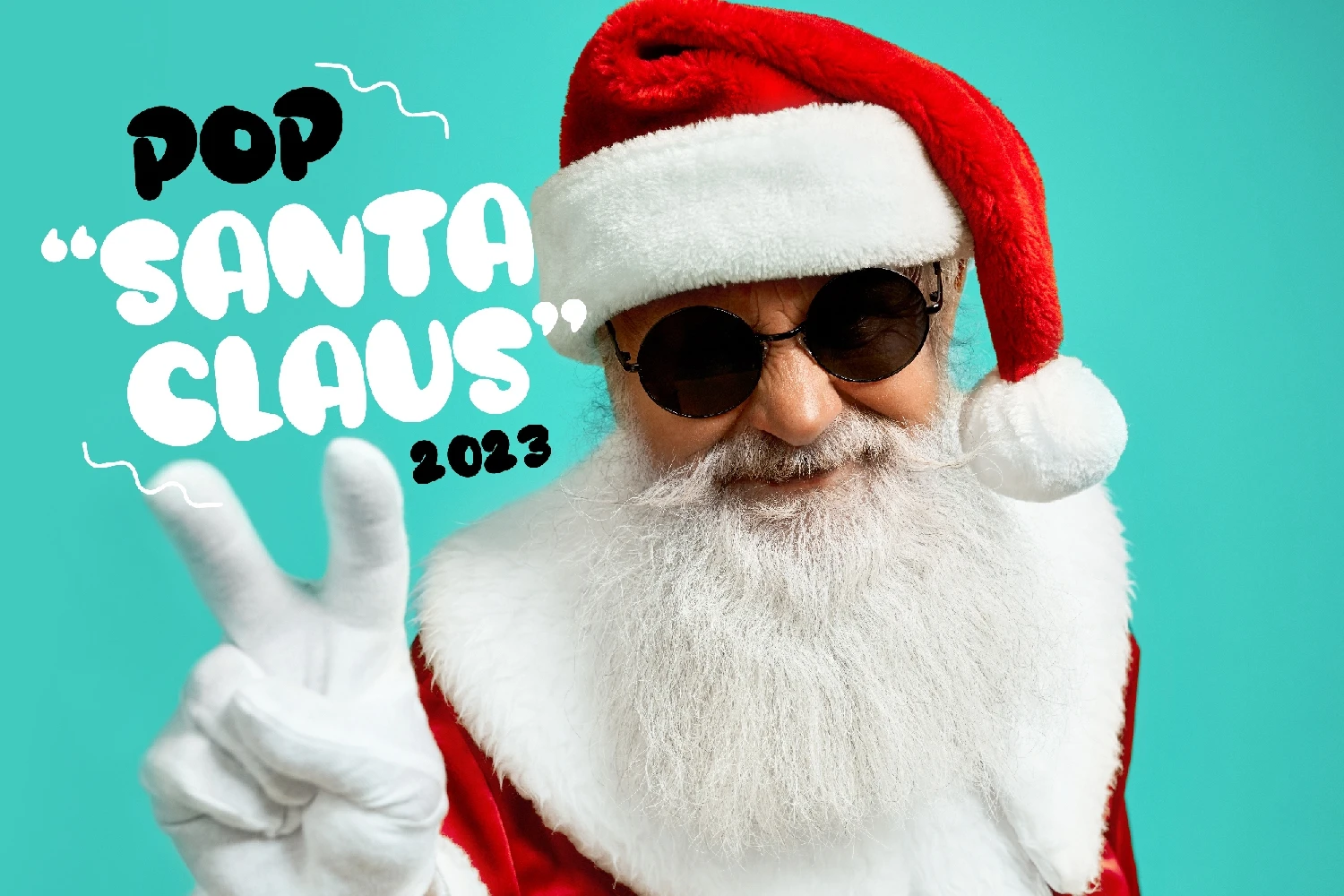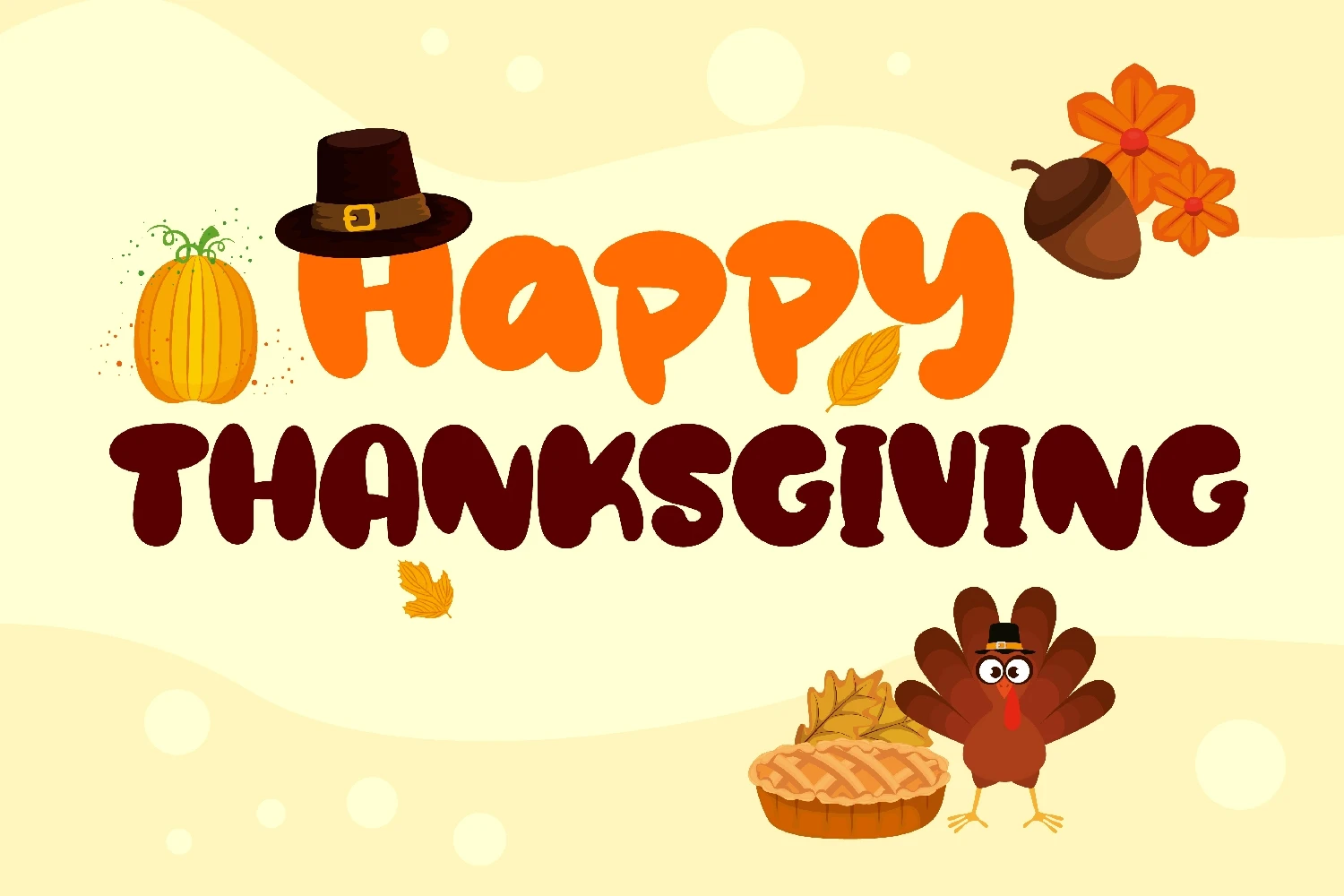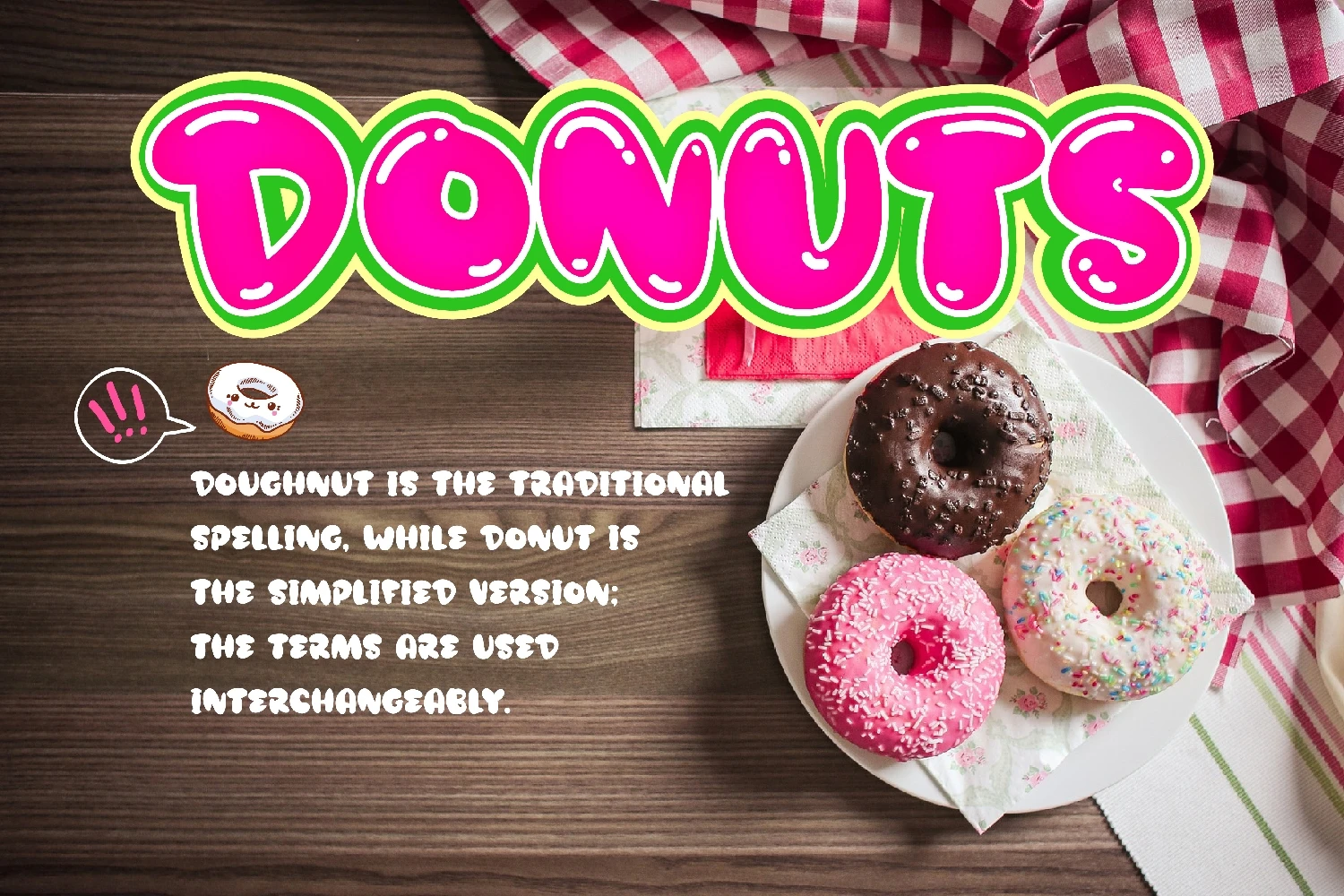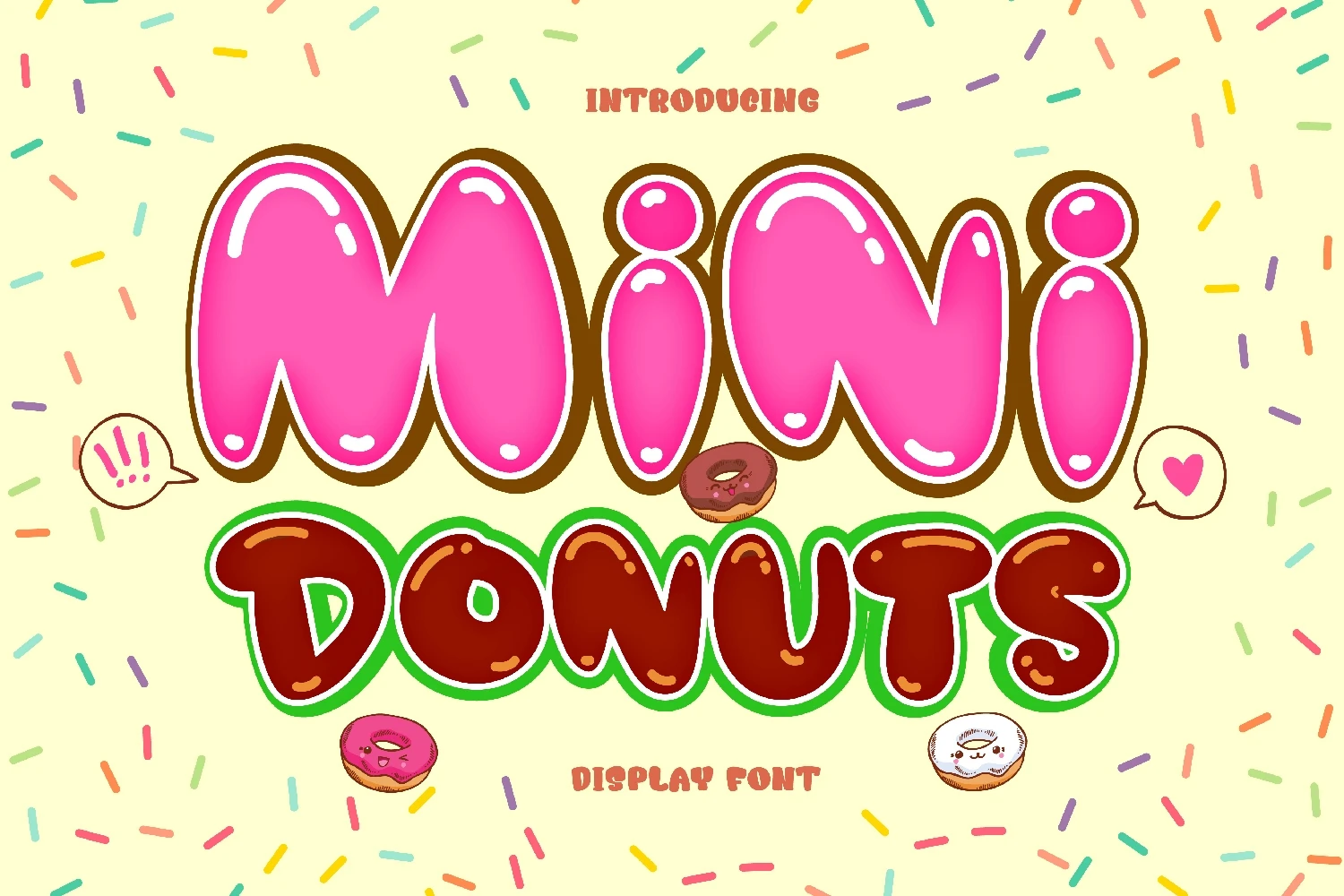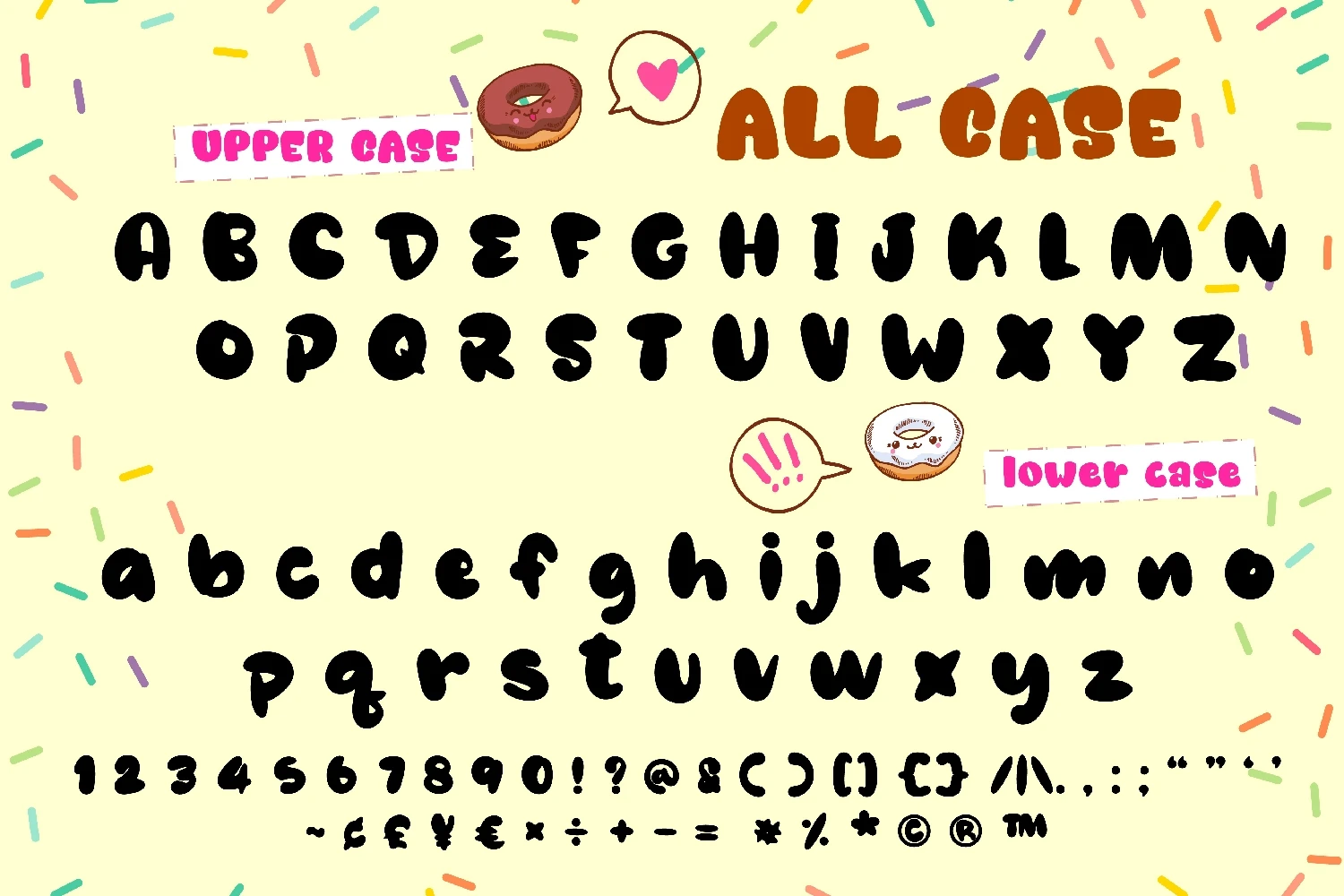
Mini Donuts is a cute, cool, and friendly display font. It embodies playfulness and authenticity and is the perfect choice for any childrens activity or school project. Add this chunky lettered font to your designs and notice how it makes them come alive!